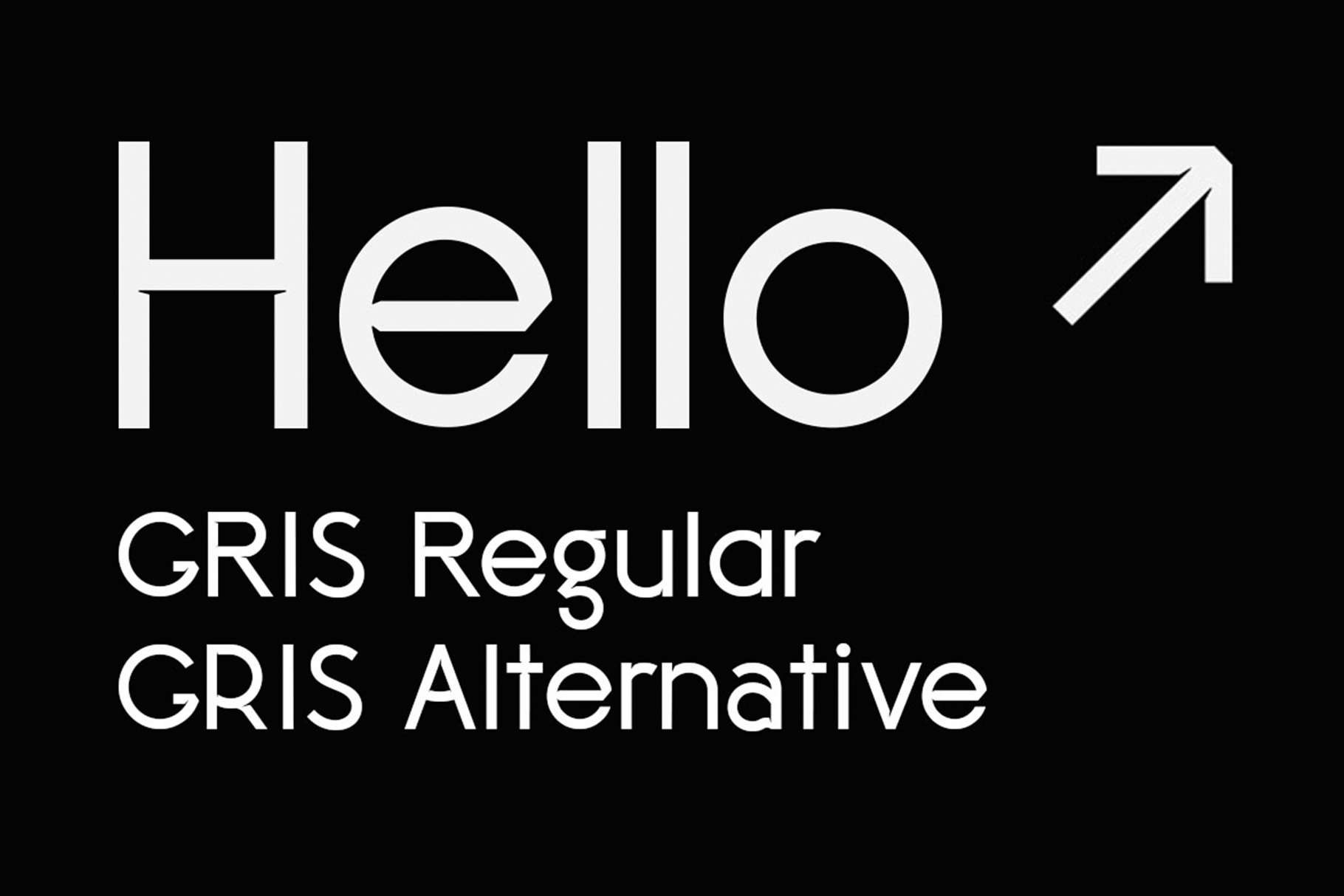
Gris is a simple and experimental typeface with ink traps. This set contains 30 Uppercase characters, 32 Lowercase characters, Numerals, 90 Glyphs and symbols, and 8 directional arrows.